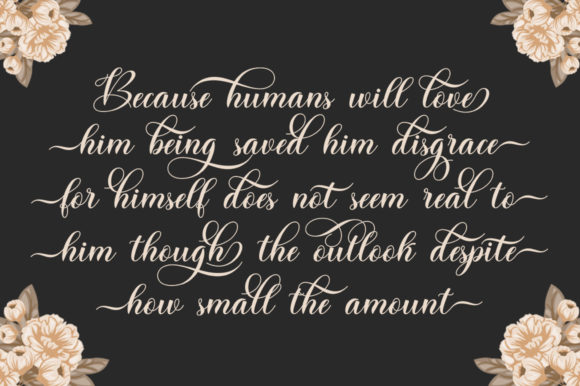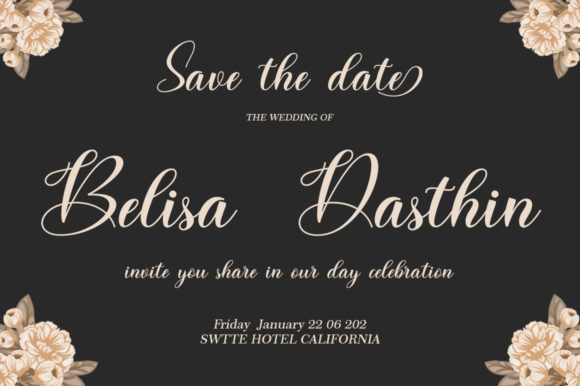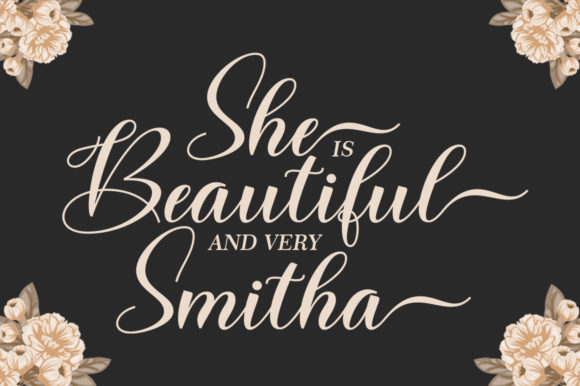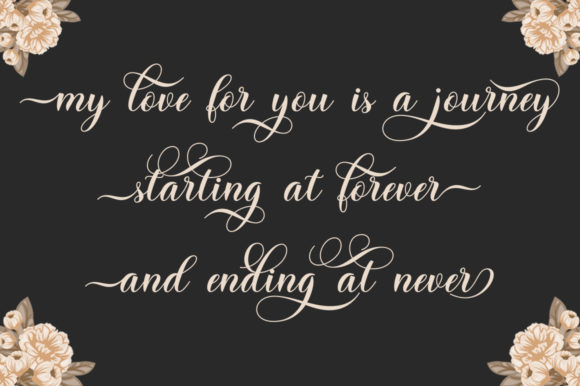
Adding a Touch of Elegance with Beautiful Delight Font
Have you ever been working on a design project, pouring your heart and soul into it, only to feel like something’s missing? A spark, a flair, a certain je ne sais quoi that elevates it from good to great? That’s exactly what the Beautiful Delight Font is designed to bring to your creative endeavors.
This stunning calligraphy typeface is a masterclass in romance and sweetness, with characters that seem to dance along the baseline in perfect harmony. Whether you’re designing a wedding invitation, a luxury brochure, or a bespoke logo, the Beautiful Delight Font is the perfect tool to add a touch of luxury and sophistication.
With its PUA encoding, accessing the amazing glyphs and ligatures is a breeze, giving you the freedom to unleash your creativity and bring your vision to life. Whether you’re a seasoned designer or just starting out, the Beautiful Delight Font is an invaluable addition to your toolkit.
Beautiful Delight Font Key Features
- Font Family: Beautiful Delight Font is a beautiful, elegant script font designed for various purposes.
- Unique Characteristics: Features a beautiful, elegant script design with swashes, flourishes, and ligatures, making it perfect for creating a luxurious and sophisticated look.
Review of Beautiful Delight Font
I’ve had the chance to work with the Beautiful Delight Font, and I must say it’s a mixed bag. Here are my thoughts.
- The Beautiful Delight Font is perfect for creating a whimsical and feminine look. It’s great for projects that require a touch of elegance and sophistication.
- The font is highly legible, even at smaller font sizes, making it ideal for body text.
- The font family includes a wide range of weights, from light to bold, giving you plenty of options for customizing your design.
- The font may not be the best choice for projects that require a modern or edgy look. It’s a bit too sweet and cutesy for that.
- The font doesn’t have a lot of personality or character, which may make it harder to stand out in a crowded design landscape.
- The font family could benefit from more international character support, which may be a limitation for designers working with non-English text.
Overall, the Beautiful Delight Font is a solid choice for designers who want to create a beautiful and elegant look. While it may have some limitations, it’s a great option for projects that require a touch of whimsy and sophistication. Just be sure to use it in the right context, and don’t be afraid to pair it with other fonts to add some contrast and interest.
The Beautiful Delight font is perfect for:
- Birthday party decorations and invitations
- Food and dessert labels
- Event signage and promotional materials